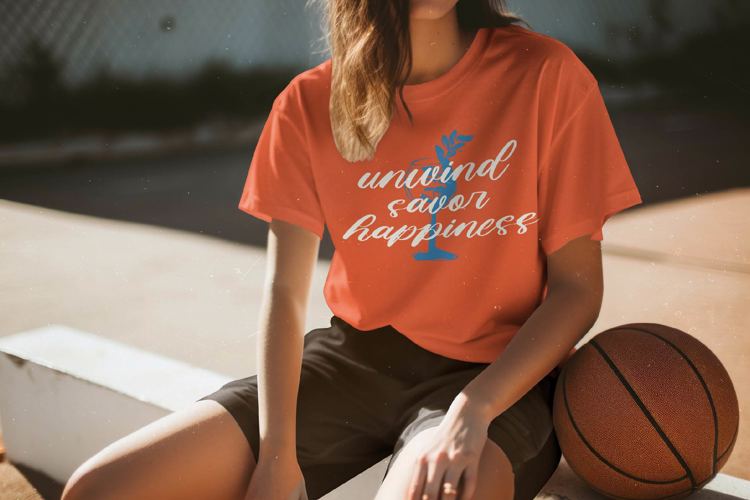
Seafood Gather - Bold Calligraphy
Elevate your branding with unmistakable flair. Introducing Seafood Gather - Bold Calligraphy, a stunning script typeface designed to captivate and convert. This font masterfully blends the intimacy of hand-drawn typography with a clean, professional finish. Its bold weight ensures maximum impact, delivering headlines that are both highly legible and irresistibly warm, perfect for conveying a sense of approachable luxury and high quality.
Unlock unparalleled typographic flexibility. Seafood Gather - Bold Calligraphy is equipped with a vast selection of OpenType features, including hundreds of stylistic alternates and ligatures. These resources are crucial for creating truly organic, custom lettering that flows seamlessly. Designers can achieve an authentic, non-repeating feel across large wordmarks and taglines, guaranteeing a bespoke visual identity every time this dynamic script is deployed.
Design without borders or language barriers. With its extensive multilingual support, Seafood Gather - Bold Calligraphy adapts seamlessly across global markets, making it incredibly versatile for international projects. This robust support ensures consistent, high-quality display for diverse language sets, solidifying the font’s position as a dependable asset for agencies and brands operating worldwide who demand professional polish.
The definitive choice for upscale, evocative communication. Seafood Gather - Bold Calligraphy is perfect for luxury branding, high-end restaurant menus, artisanal product packaging, wedding invitations, and winery labels. Its inherent warmth and high-contrast styling evoke quality and tradition, making it an essential typeface for projects requiring a touch of celebratory elegance and genuine personality. Invest in this script to instantly elevate your design portfolio and ensure maximum commercial appeal.